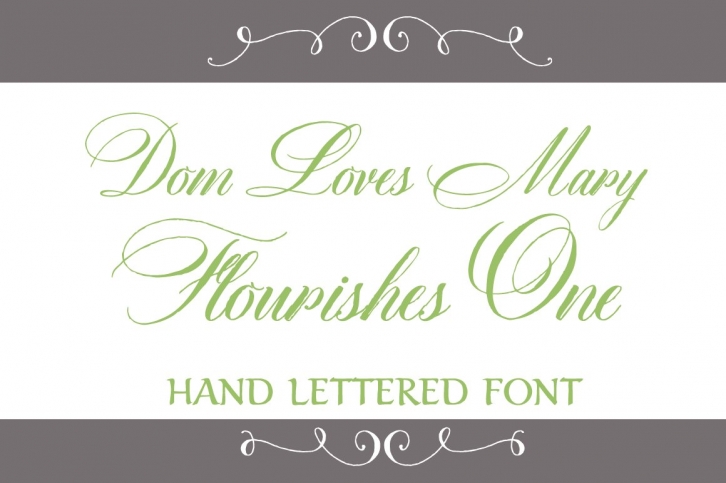
Dom Loves Mary Flourishes One is one of two sets of hand lettered flourishes. They were created to go with the Dom Loves Mary fonts but are a great choice for any project seeking a custom hand flourished look.
The Dom Loves Mary Flourishes One set contains a total of 72 flourishes that can be used separately or combined to create frames and borders. The flourishes will show up as a separate listing in your font library. They work just like Clip Art! Just use the key map to select the flourish you want.
Dom Loves Mary is named in memory of my in-laws, Dominic and Mary Sementelli. Inspired by their 1952 wedding, I sought to create a classic, elegant script font that would serve their memory well. Dom and Mary were opposites who were truly “made for each otherâ€. A snazzy dresser, Mary was feisty, loved to dance, sing, and be the life of the party. Dom was cool, calm and collected and was happy to shine the spotlight on the love of his life. They balanced each other out in a really great way. Debi decided to create a hand-lettered font with them in mind represented by two totally different lettering styles, SCRIPT and TEXT, that were, like Dom and Mary, “made for each otherâ€.